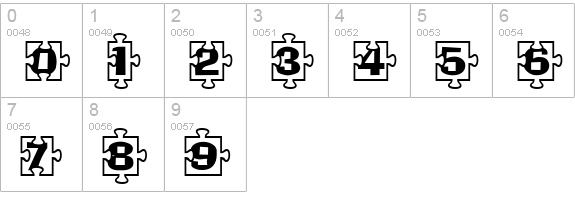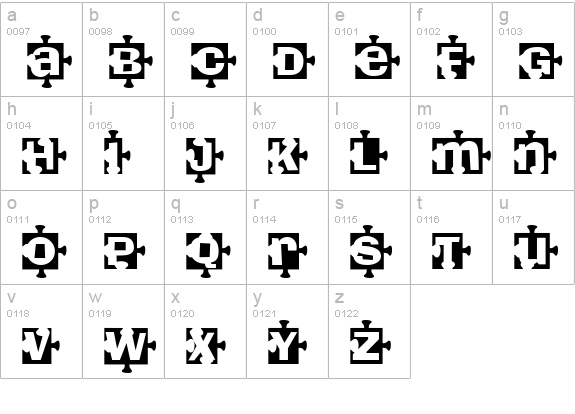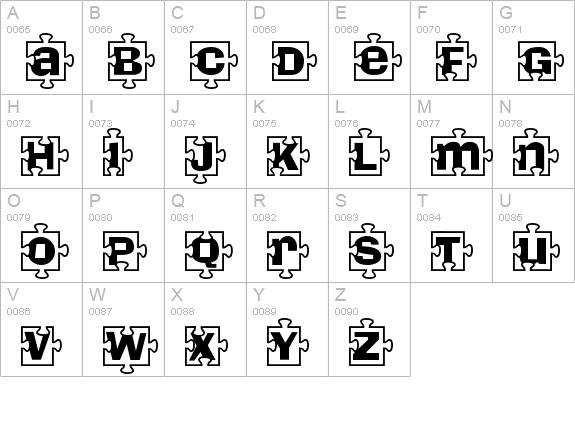
PiecesBW Font Details
PiecesBW is a stunning display font that exudes elegance and sophistication. Its unique design features intricate patterns and detailed shapes, making it perfect for adding a touch of luxury to any project. The font is versatile and can be used for a wide range of design purposes, from logos and branding to invitations and packaging. One of the best things about PiecesBW font is that it is completely free to download. You can easily access this exquisite font at FontsMarket.com, where you can explore its full potential and incorporate it into your creative projects. Don't miss out on the opportunity to enhance your designs with the beauty and charm of PiecesBW font. Download it today and elevate your creations to new heights.